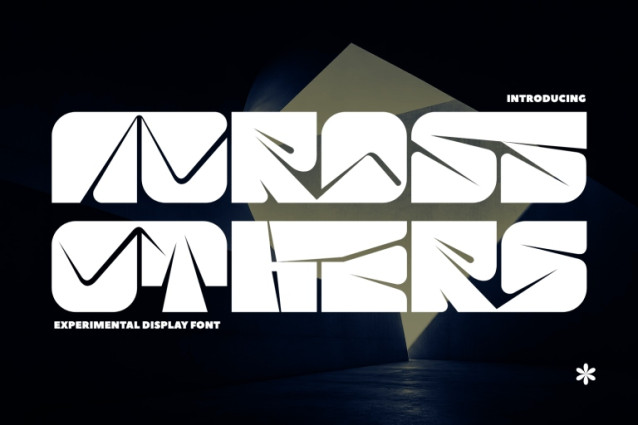
Across Others – Futuristic Font
Across Others – Futuristic Font – Experimental Cyber-Slit & Heavyweight Futuristic Display Font, is a high-impact, experimental display typeface born at the dynamic intersection of heavy blocky geometry, cybernetic razor slits, and Y2K streetwear culture. Designed with ultra-solid pillow-block proportions carved by precision diagonal micro-slits, this font delivers an aggressive, futuristic edge that immediately commands attention across digital and print media.
By pushing the boundaries between abstract letterforms and high-impact display readability, Across Others transforms standard text into a powerful graphic monument. Its massive visual weight, paired with razor-sharp negative space slashes, makes it the definitive typographic choice for electronic music posters, streetwear apparel graphics, cyberpunk gaming logos, energy drink packaging, techwear branding, and avant-garde editorial covers.